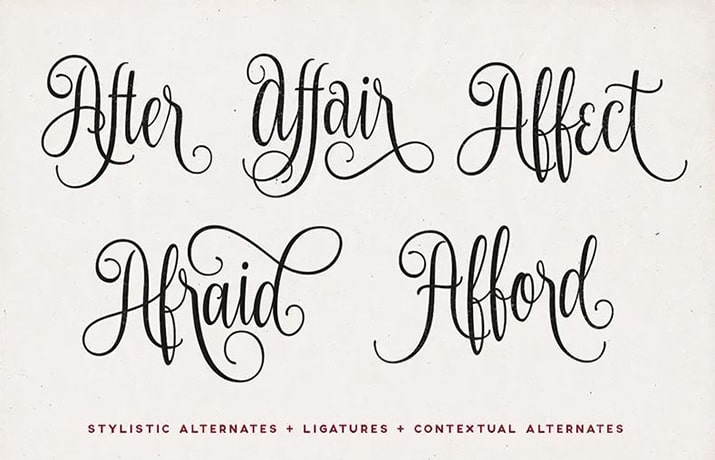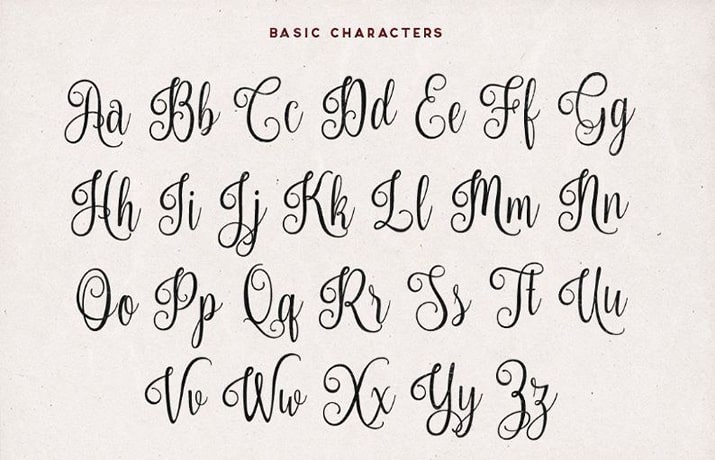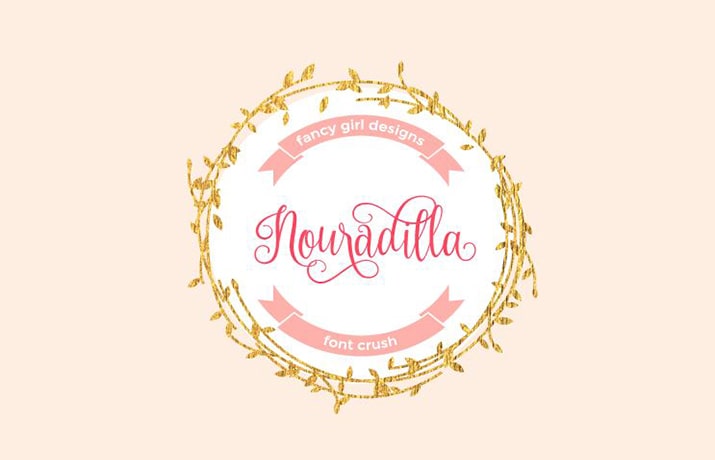
When we talk about a beautiful cursive font, the flourish and flair of Nouradilla Font come to mind. Its bouncy, tight curls glide smoothly across the screen or page without losing their clarity.
It adds character and impact when used large, in addition to having a softening effect when set at a smaller size. However, more than that brings a dynamic individual to your writing.
So, that’s why this various font family has gained a lot of popularity in no time due to its cool real-type features and great readability.
Due to its cursive structure, you can easily use this stunning font for ambitious headlines, posters, flyers, e-book covers, brand design, special events, printing, apparel printing, covers, decorations, branding, and more.
This typeface has contained 413 Glyphs count in numbers and 216 characters. Moreover, it has support Ligature, Contextual Alternate, and Stylistic sets ( up to 16 variants per letter).